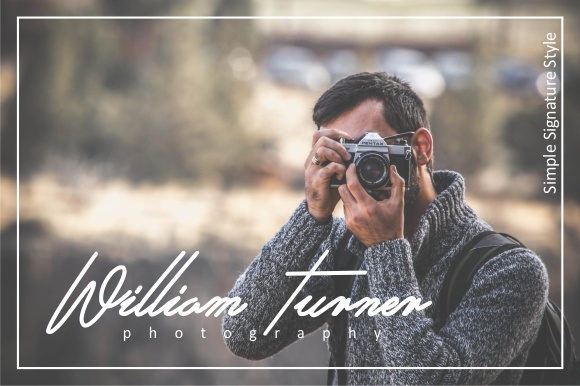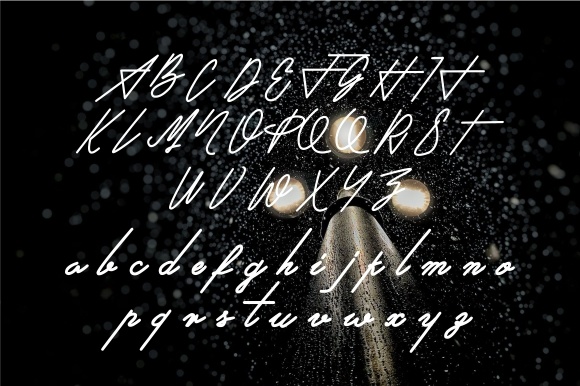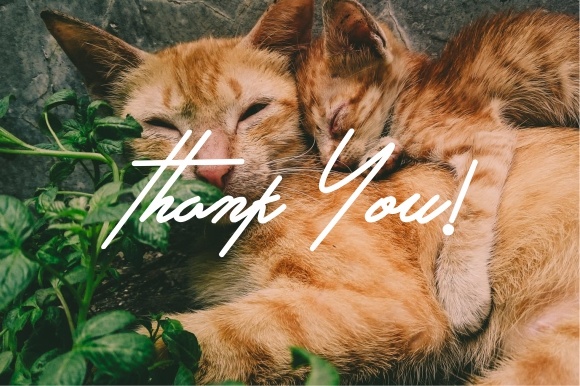
Unlock the Power of Handwritten Charm with Auotomatic Font
Have you ever been stuck trying to find the perfect font to convey a sense of personality and style in your design? We’ve all been there – scrolling through endless font libraries, searching for that one font that just clicks. For me, it was the moment I stumbled upon Auotomatic Font, a modern and simple font that brings a touch of elegance to any text.
As a versatile font, Auotomatic Font is perfect for a wide range of projects, from photography and watermark to quotes and blog headers. Its modern signature script makes it an ideal choice for designers looking to add a personal touch to their work. With Auotomatic Font, you can take your designs to the next level and make a lasting impression on your audience.
Key Features of Automatic Font
- Unique Characteristics: Features a unique font design with subtle nuances in letterforms, making it suitable for use in body text, headings, and titles.
Automatic Font Review
Overall, I was excited to dive into the Automatic Font, hoping to find a game-changing solution for my design projects. Here’s my honest take.